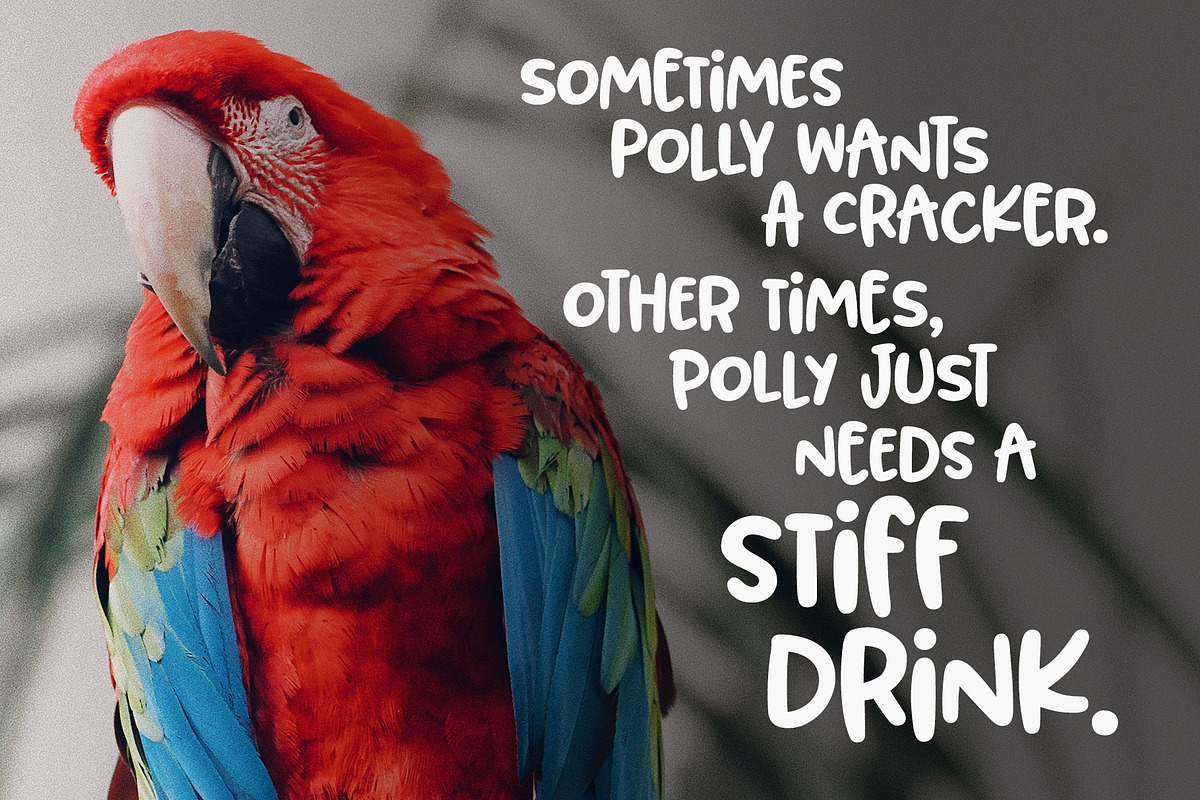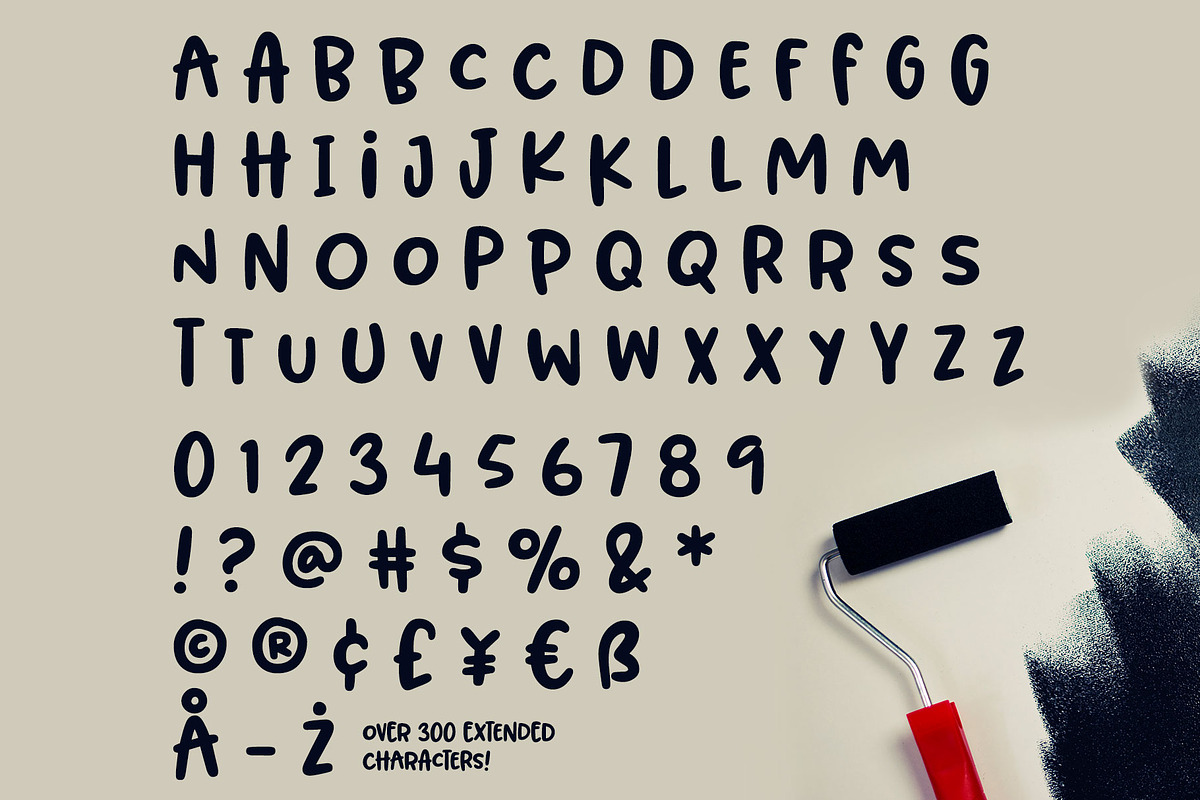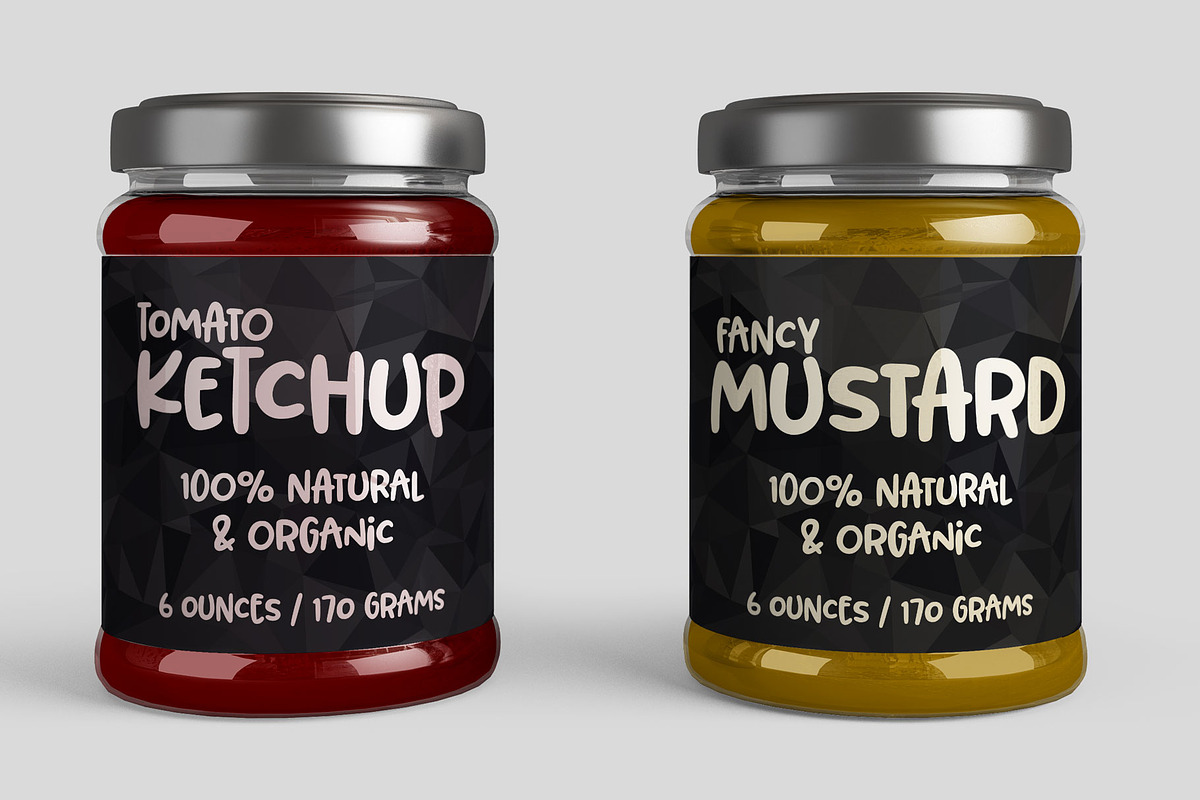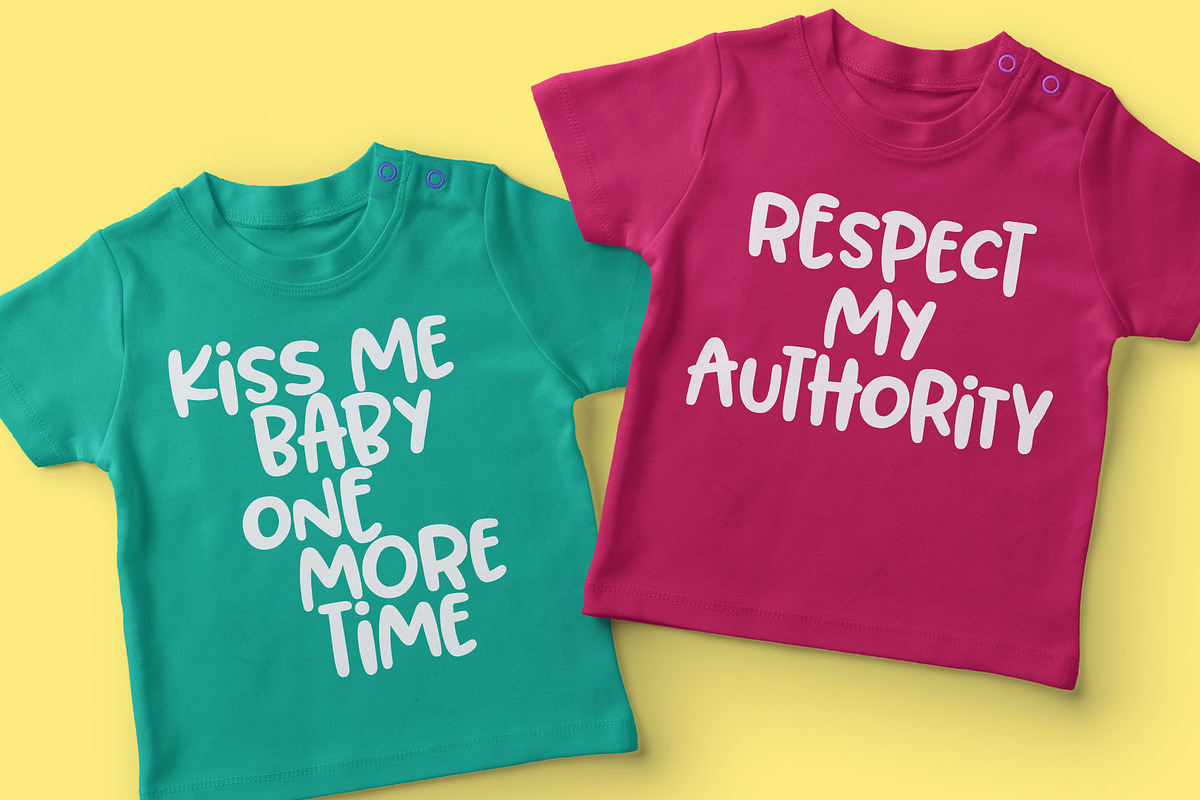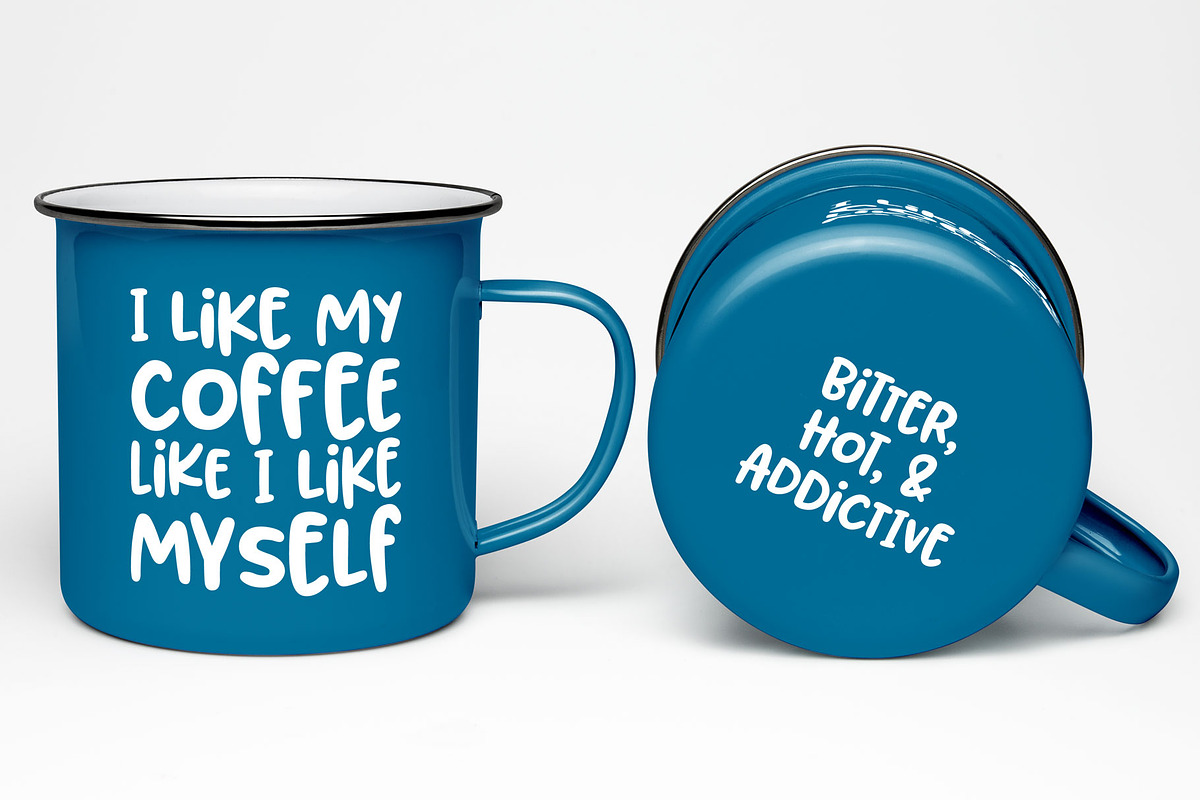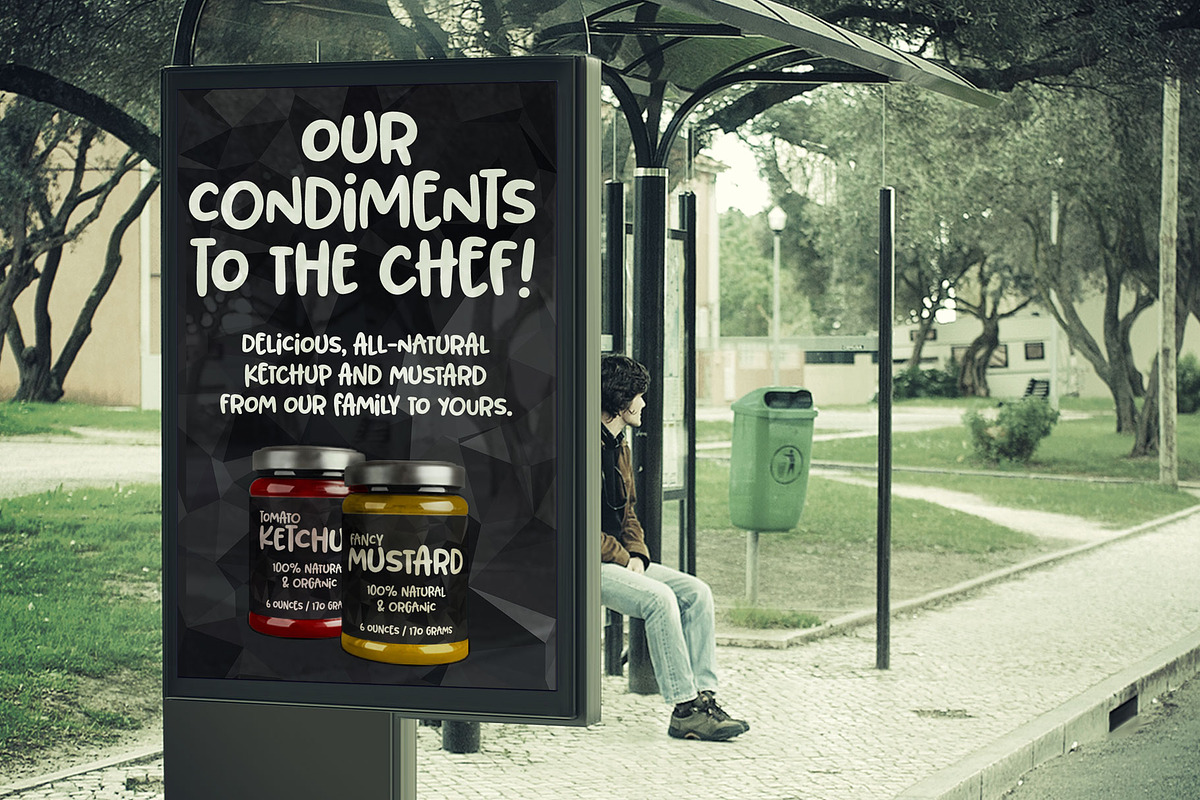
BLORP! A fun, weird little font!
I had a totally different name assigned to this font at first. Then, while drifting off to sleep one night during the creation process, my sleepy brain said, "You know, BLORP would be a great name to go with these letter shapes." Normally when I have those half-asleep ideas and look at them in the morning, they make no sense. But I decided to make a sample image for BLORP, and it turns out I really like it!
This font is extensively edited for super-smooth lines and curves, so it'll cut like butter in your Cricut or Silhouette machine. Though it's also super cute for print projects, logos, branding, or anything else you want to use it for! It has a funky mix of letter sizes and heights, and two sets of uppercase letters, so you can mix everything together JuSt LikE tHIs, and it'll still look great!
BLORP includes over 300 extended Latin characters for language support, including, but not limited to: Catalan, Czech, Danish, Esperanto, Estonian, Finnish, French, Gaelic, German, Icelandic, Irish, Italian, Latvian, Lithuanian, Norwegian, Polish, Portuguese, Romanian, Serbian (Latin), Slovak, Slovenian, Spanish, Swedish, Turkish, Welsh, and more!